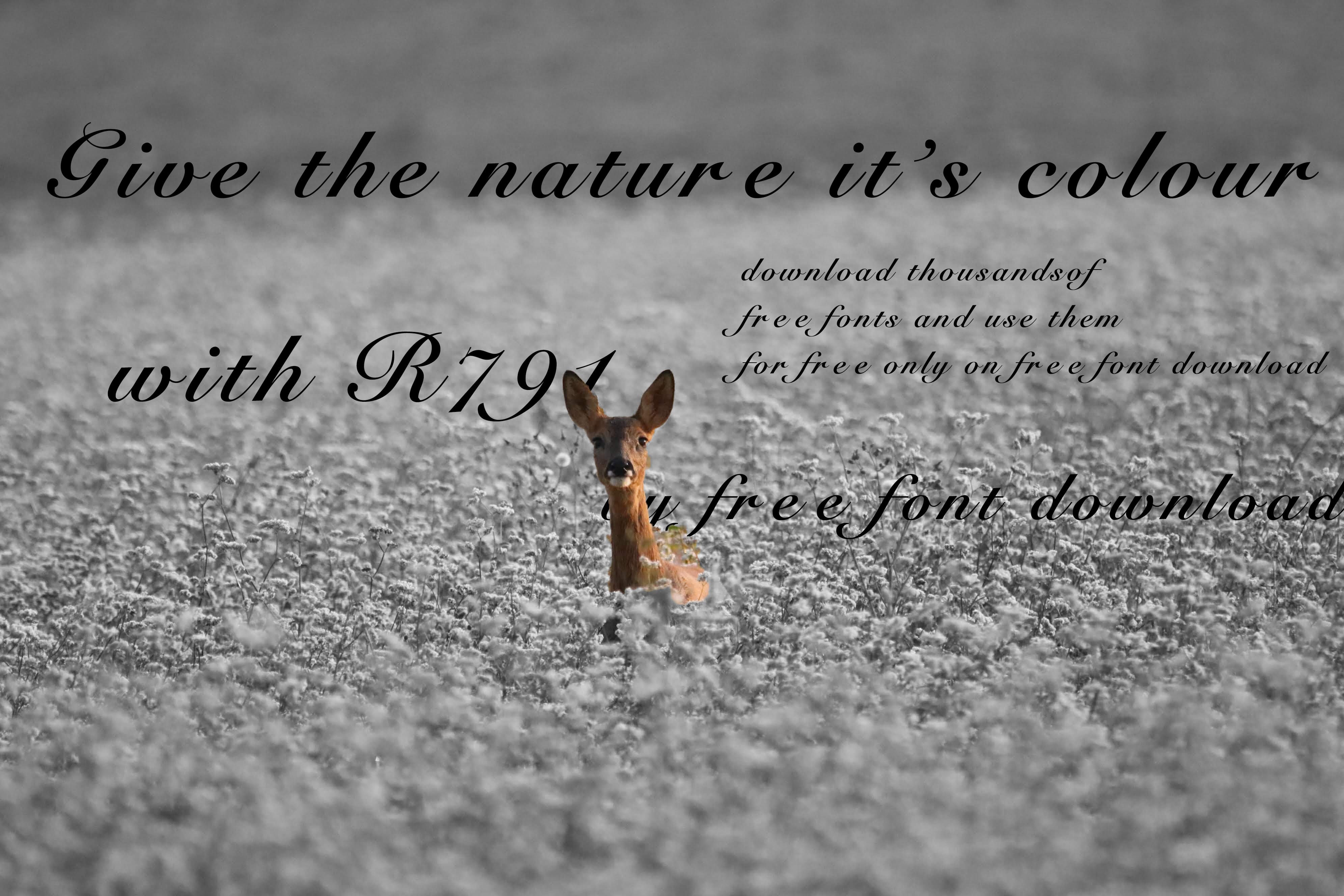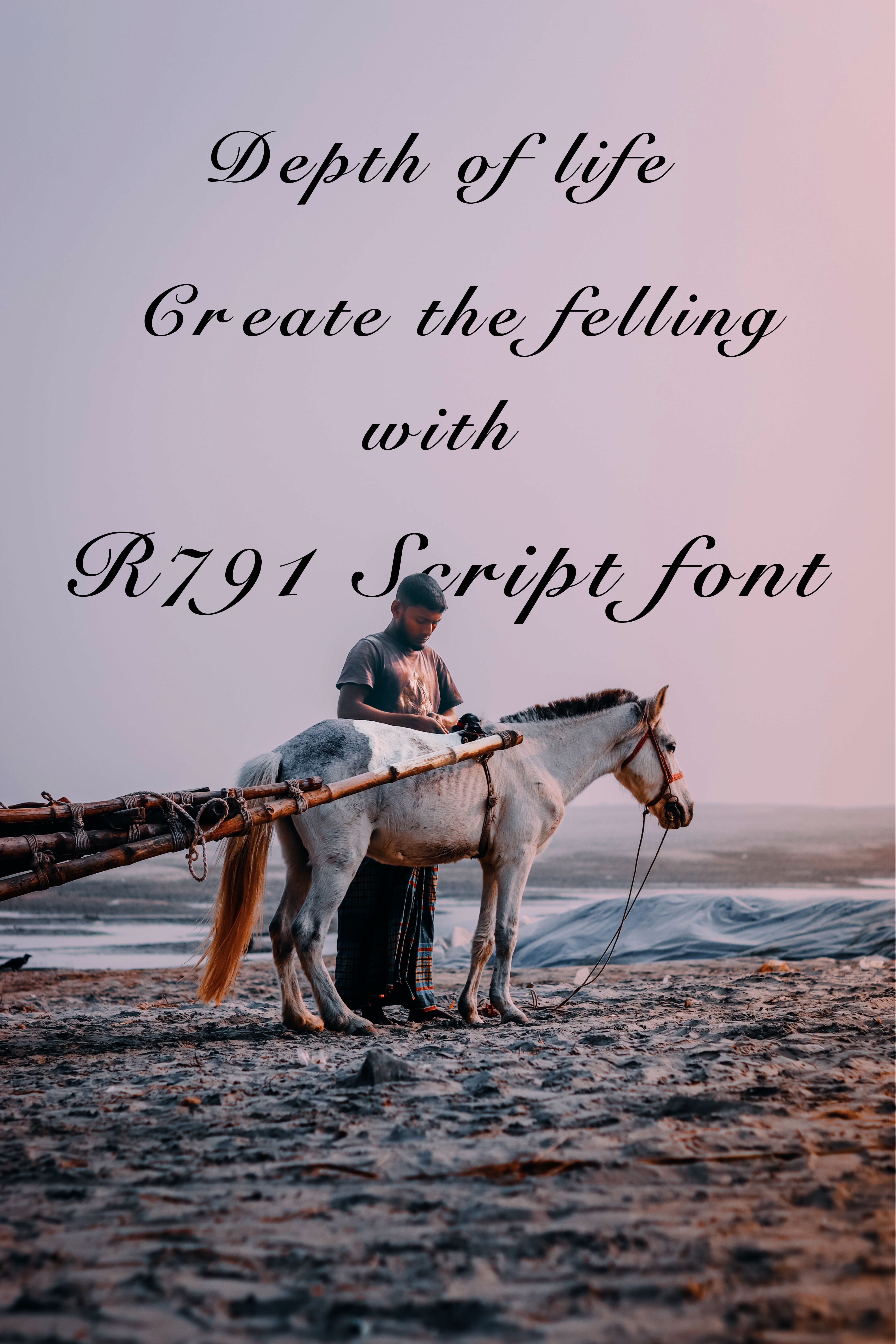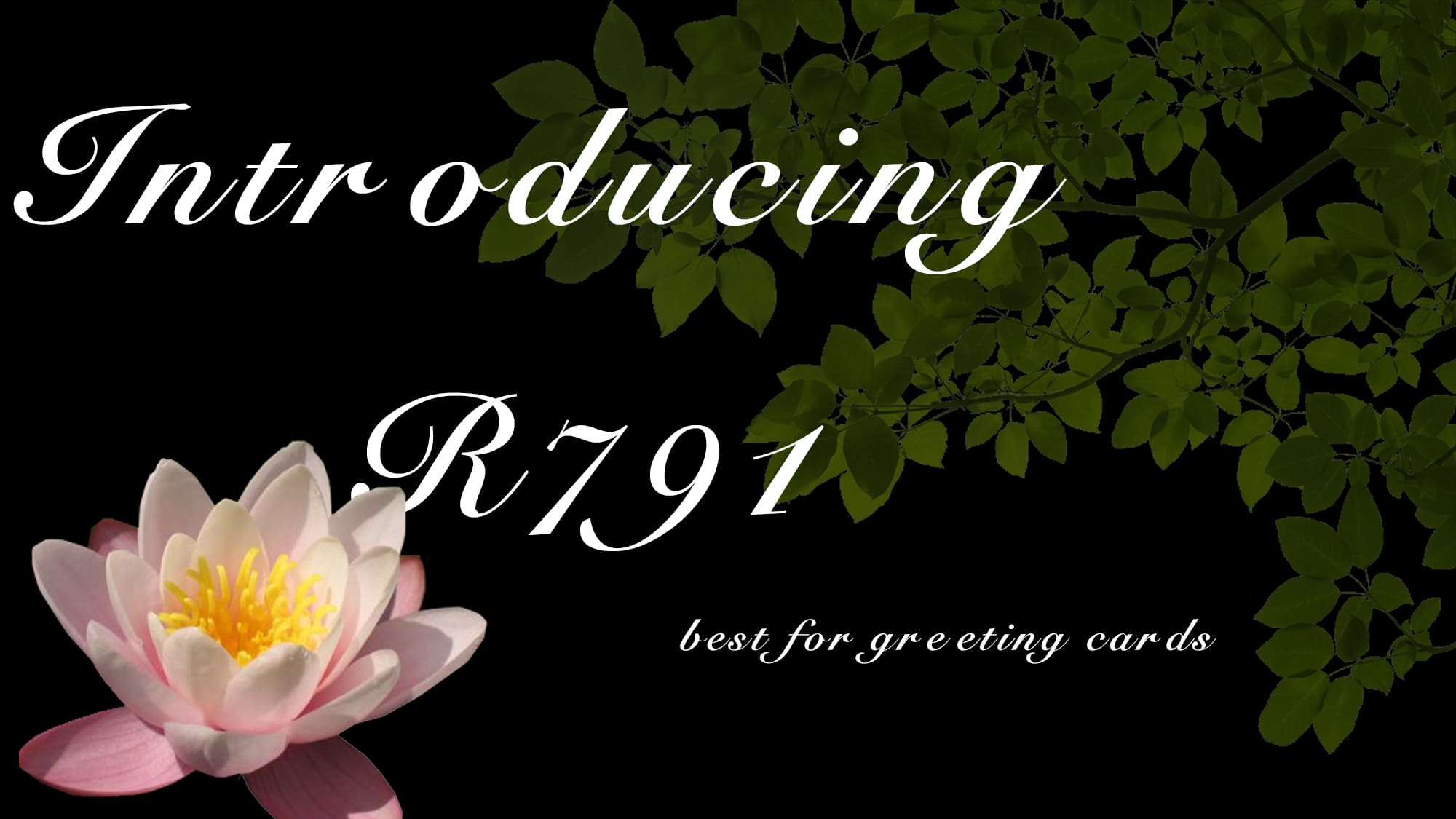
R791 Script Bold font is ideal for adding a playful touch to your designs. It belongs to the Bold subfamily and was created by SoftMaker Software GmbH. You can use this font freely for personal purposes.